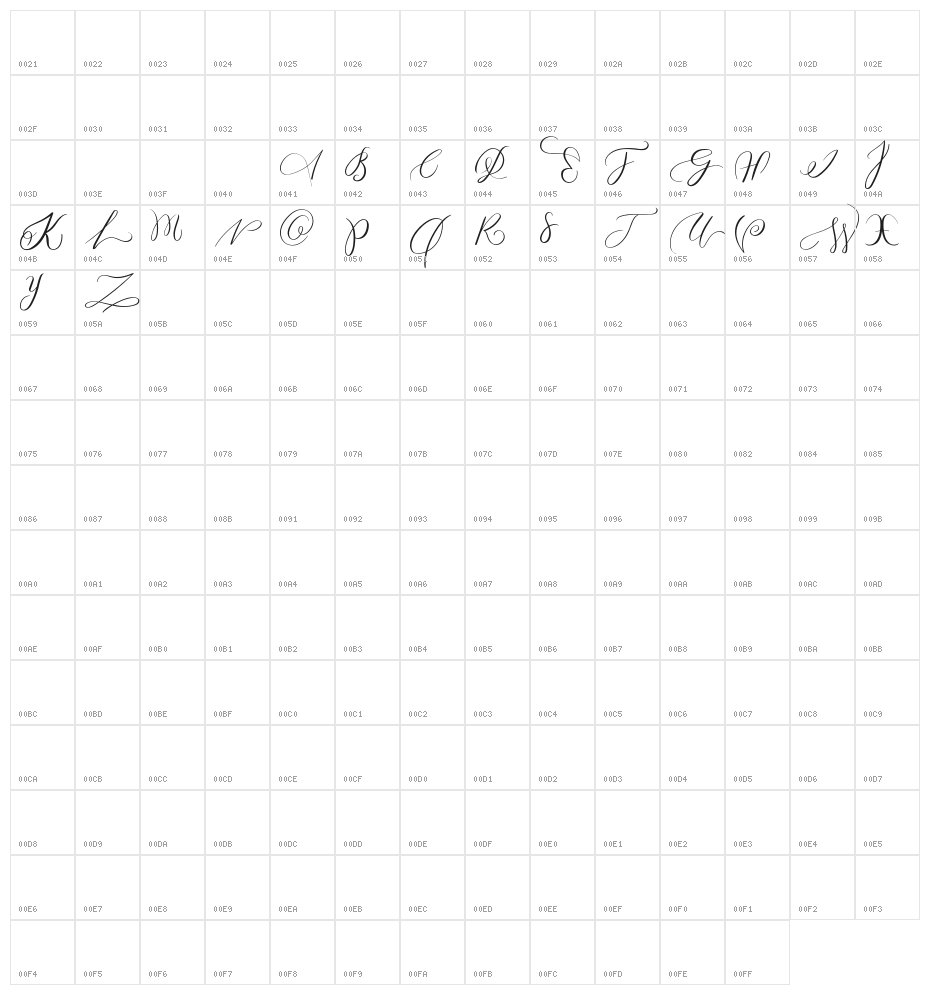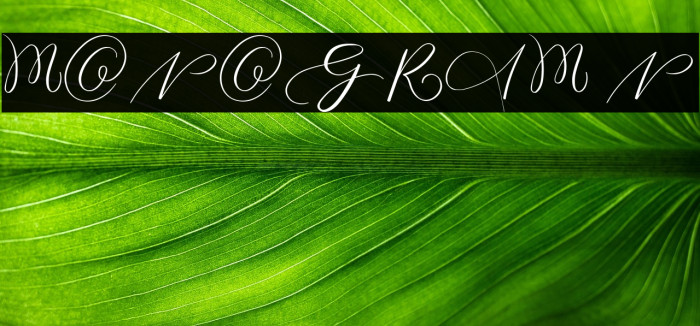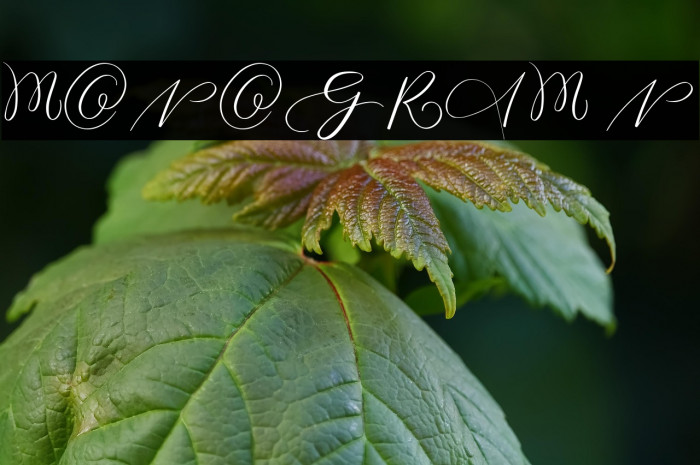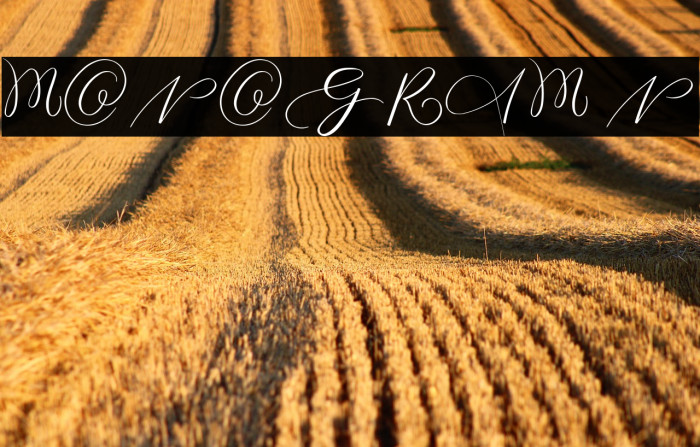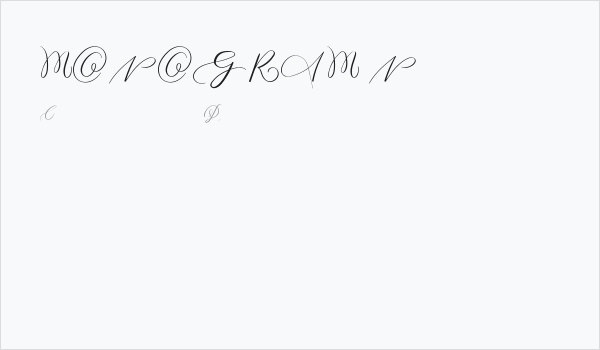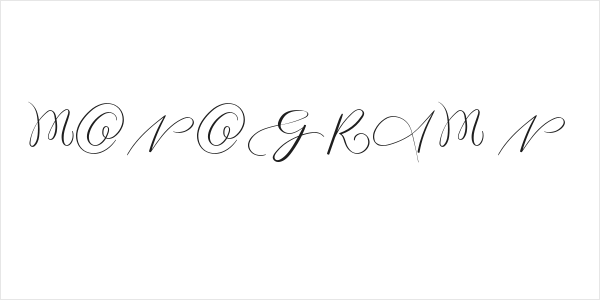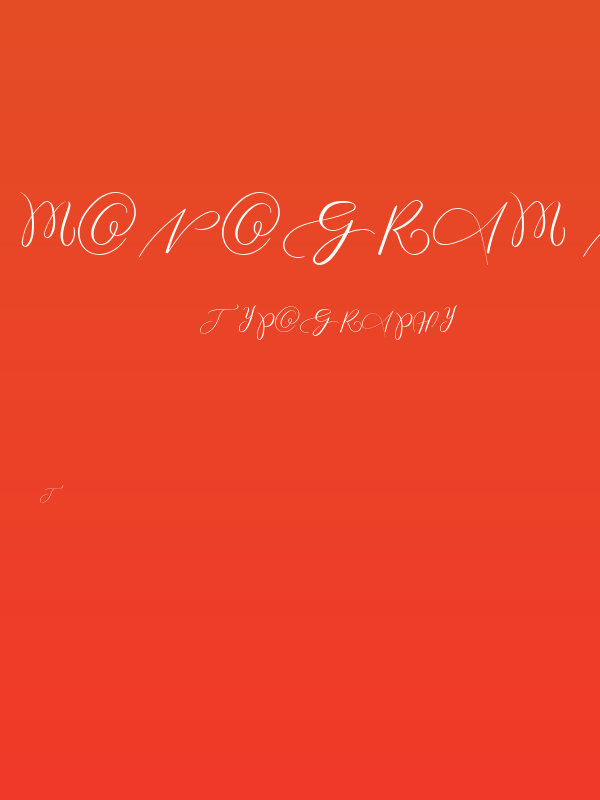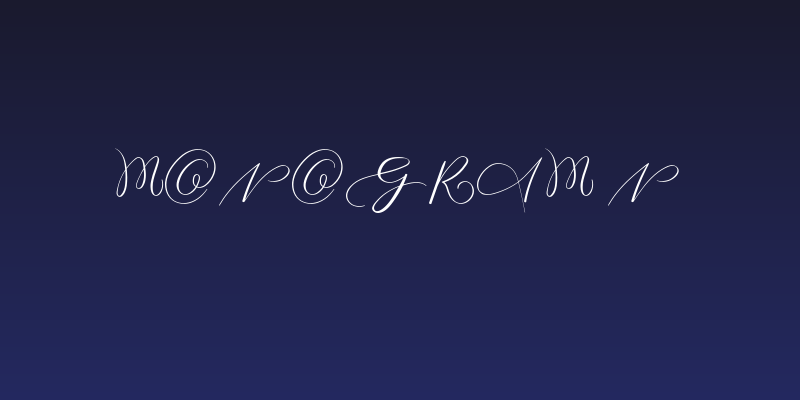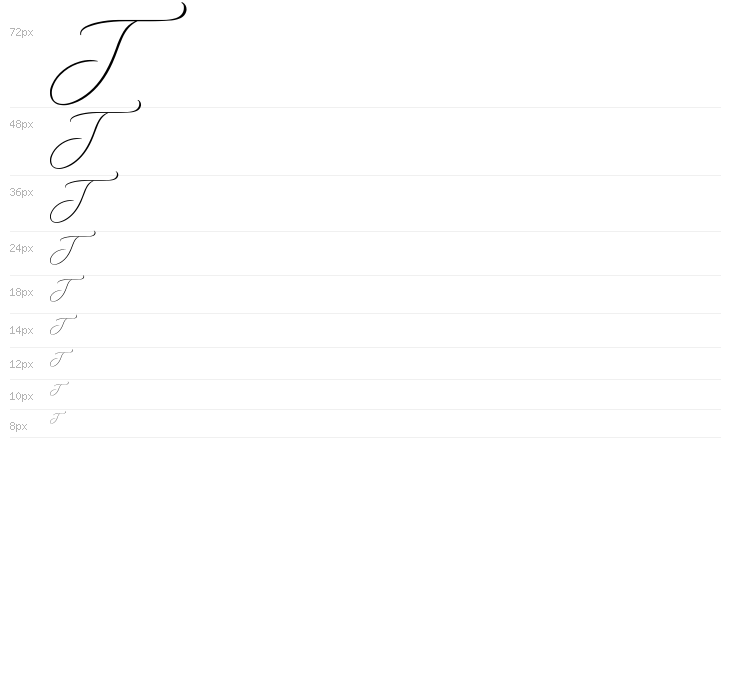
MONOGRAM N Font
MONOGRAM N Description
This elegant script font features intricate and flowing letterforms, characterized by its ornate and decorative style. Each letter is crafted with delicate curves and flourishes, giving it a sophisticated and artistic appearance. The font exudes a sense of luxury and refinement, making it ideal for formal and high-end design projects. Its calligraphic nature is reminiscent of traditional handwriting, yet it maintains a modern touch. The strokes are consistent in weight, providing a balanced and harmonious look across all characters. This font is perfect for creating monograms, invitations, and other decorative applications where a touch of elegance is desired.
| Use Case | Logos, Invitations, Decorative text |
| Proposed Projects | Ideal for wedding invitations, luxury branding, monograms, and decorative signage. |